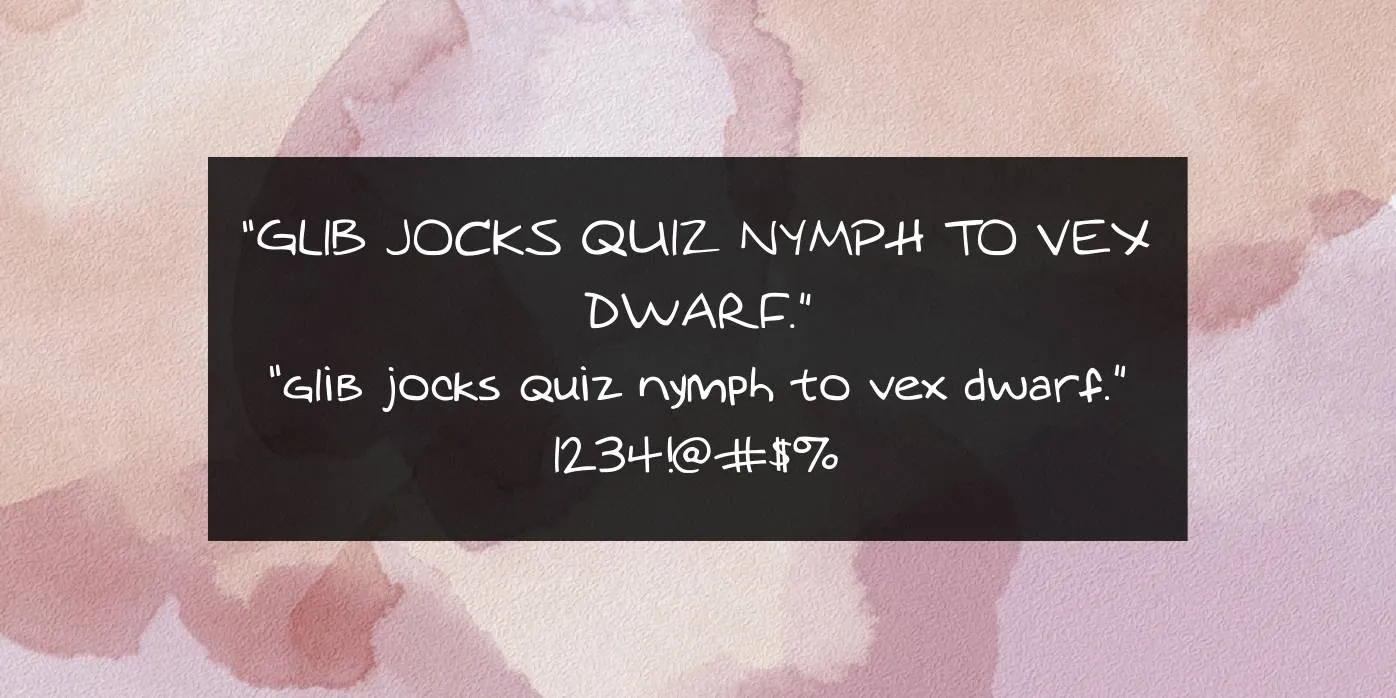
Augie Font
Today, we are consulting on an awesome font family known by the name Augie Font. It was designed by  Emerald City Fontwerks. It belongs to the handwritten font family. As the name suggests it was mainly created for personal use.
Later on, it was released for public use with an extended character set. The main aim of this font family is to create a fun and friendly handwritten look. This can be easily achieved by using Augie Font for your headlines, titles, and slogans. The best thing about this font is that it comes in three different styles.
You can choose from regular, bold, or italic according to your preference. Another similar font which is the atatrk font is perfect for different designs. It is not included in google fonts. If you are looking for a handwritten font with a fun and friendly look, then Augie Font is the perfect choice for you.